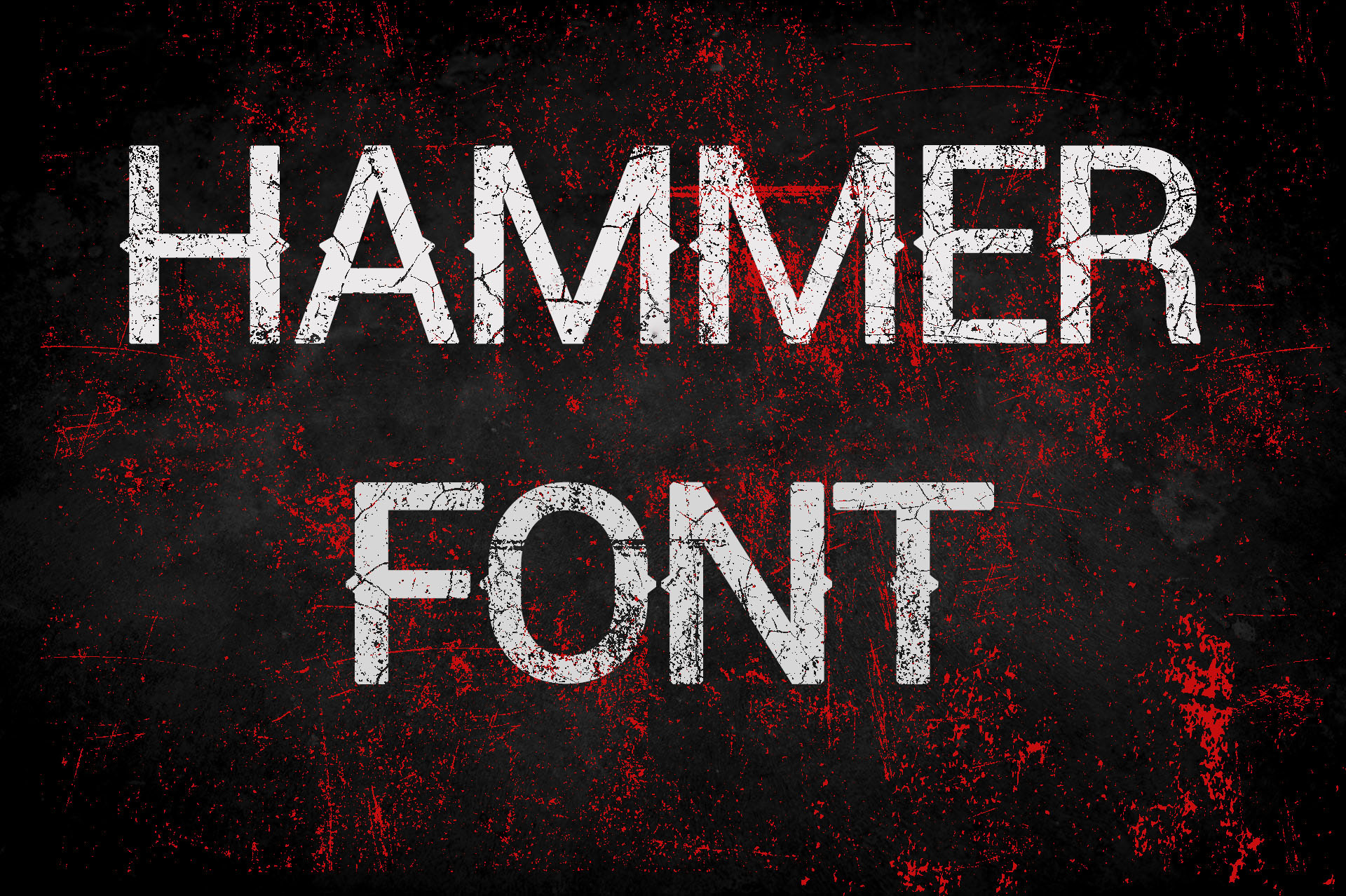
Hammer Font - Vintage Display Font
Hammer is modern vintage display typeface.
Retro Style Heavy Metal Font.
Great for posters, logos, packaging, invitations, website titles ..